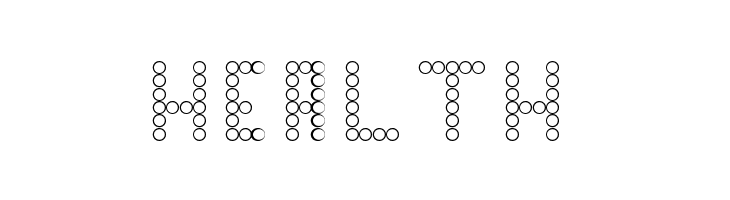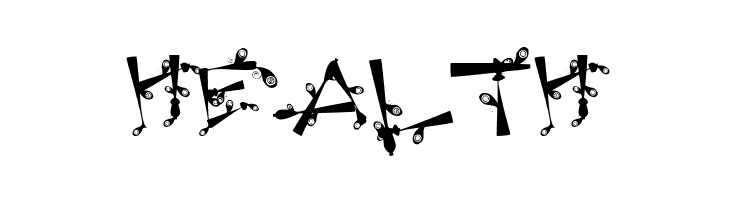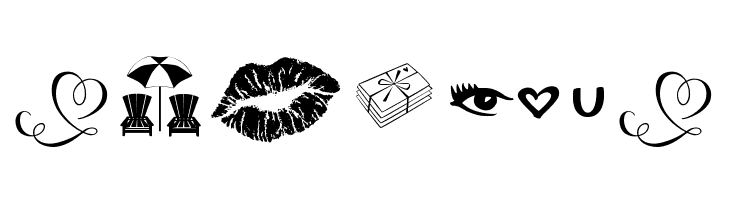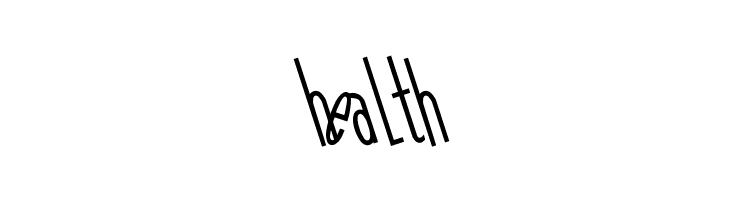
A diverse set of bold, geometric, and illustrative logo glyphs.
A modern, geometric font with clean lines and a minimalist style.
A photography-themed dingbat font with camera and accessory illustrations.
A tall, narrow, and modern font with sleek, elongated letterforms.
A tall, narrow, and modern sans-serif font with a sleek and minimalist style.
A dynamic, angular font with elongated characters and a modern edge.
A modern, loop-based font with interconnected circular designs.
A whimsical, decorative font with intricate swirls and curls.
A romantic collection of love-themed icons and symbols with elegant and detailed designs.